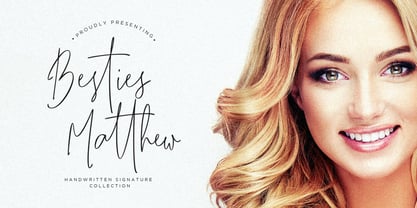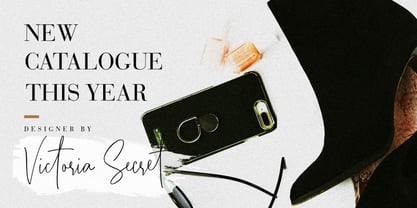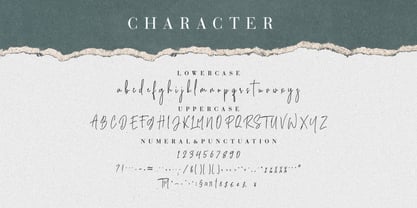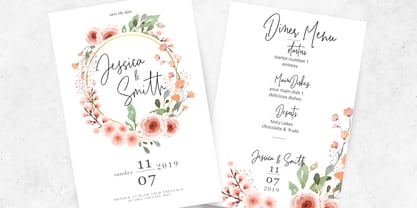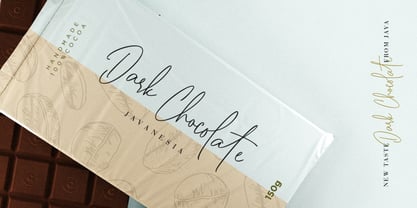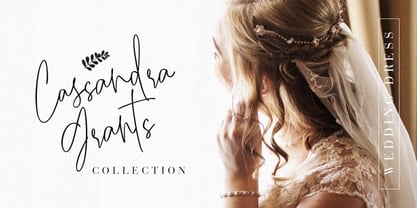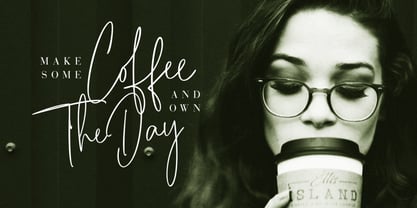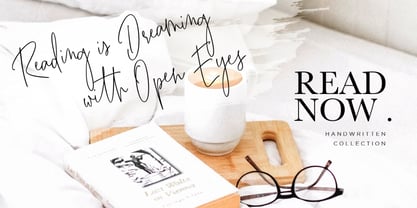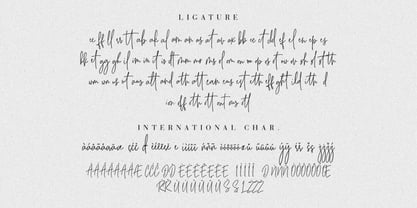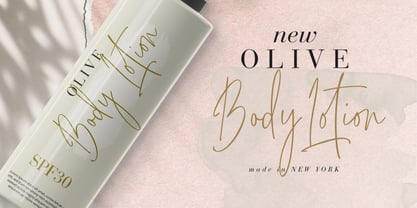
Besties Matthew
by Creatype Studio
The Besties Matthew Font Family was designed by Rian Rahardi and published by Creatype Studio. Besties Matthew contains 1 styles. More about this family
Besties Matthew is a charming handwritten signature font that radiates natural flow and effortless elegance. Designed with elongated ascenders and a delicate rhythm, it’s ideal for brands that want to evoke authenticity, femininity, and softness.
Bring your designs to life with graceful authenticity—Besties Matthew mimics the beauty of real handwriting, making your brand feel warm, approachable, and irresistibly elegant. Whether you’re crafting product packaging or heartfelt wedding invites, this font adds an intimate personal touch that connects instantly.